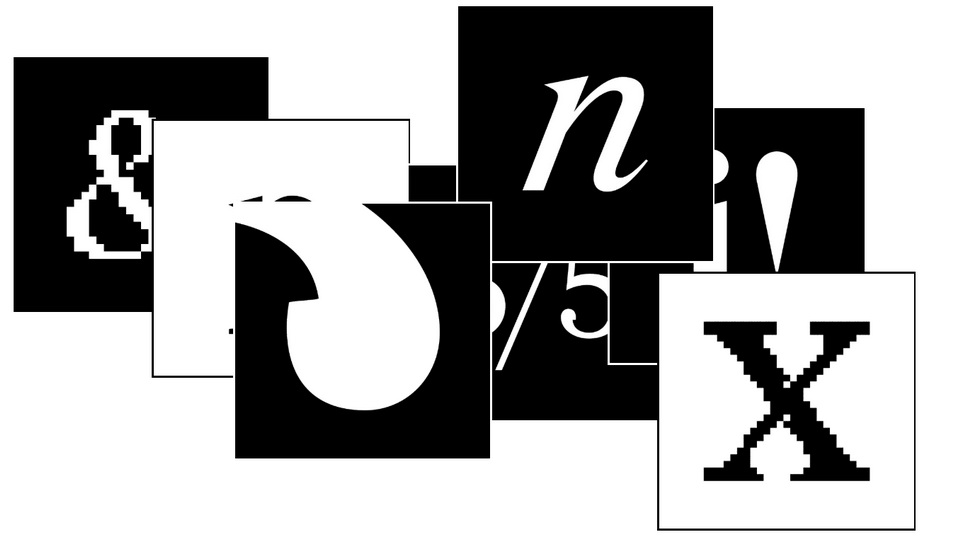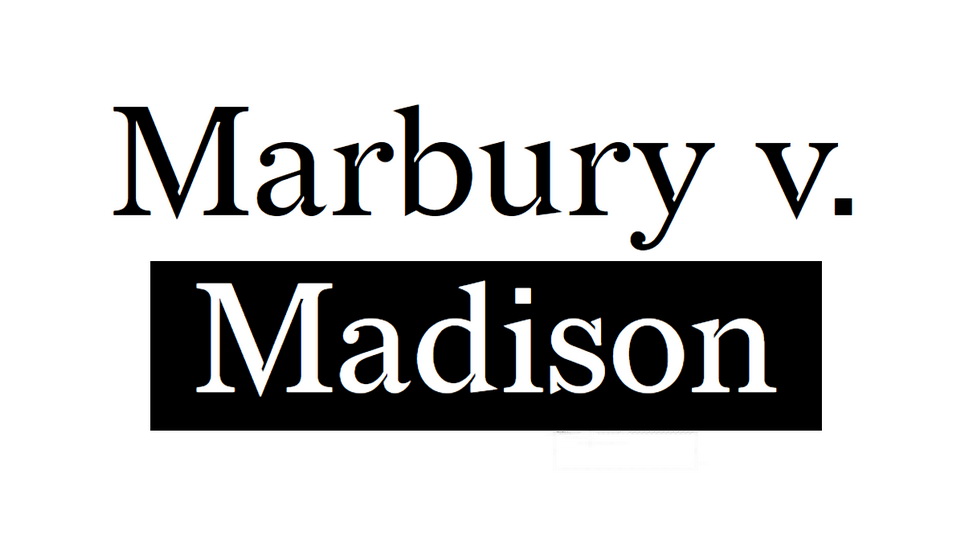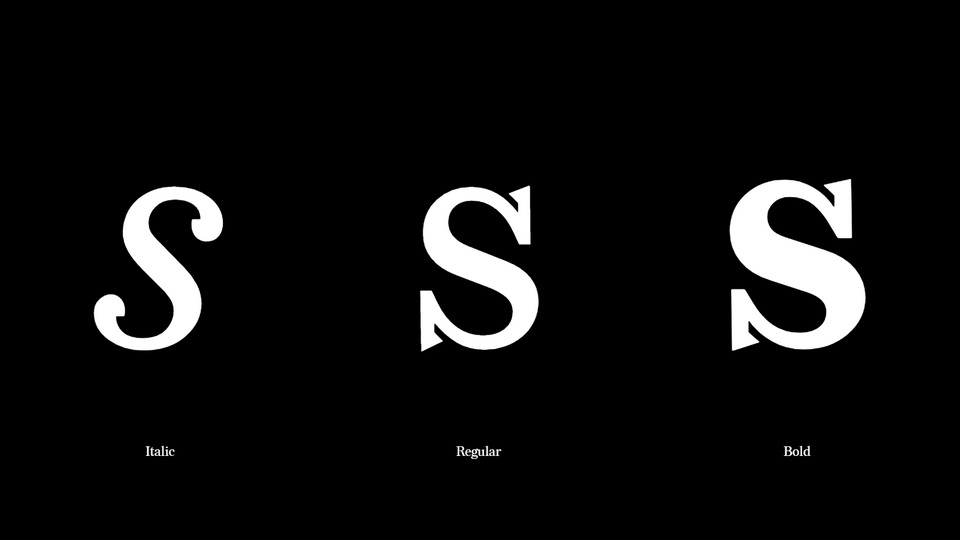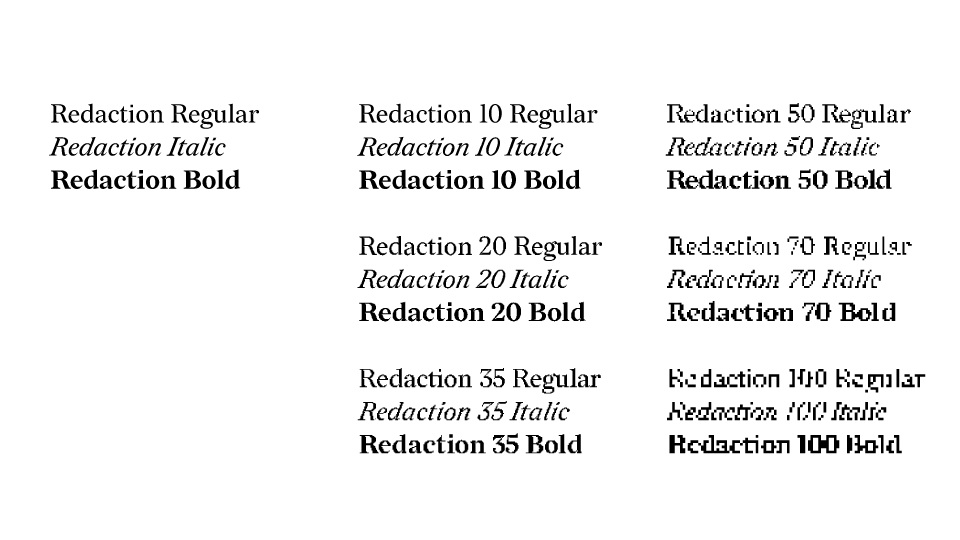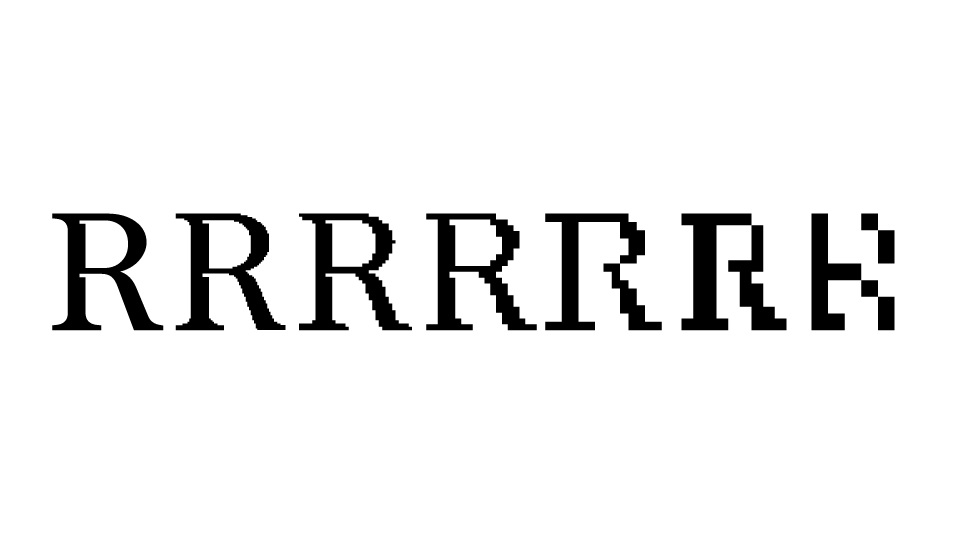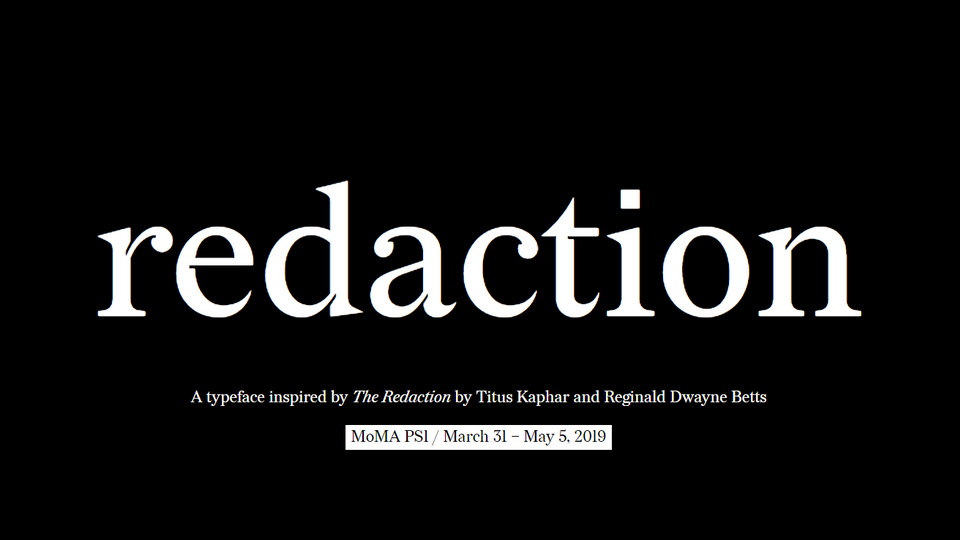
Redaction Typeface
Redaction is a multiplicity of typographic, legal, and human histories. The typeface was commissioned by Titus Kaphar and Reginald Dwayne Betts’ The Redaction exhibition at MoMA PS1.
Redaction is a typeface that seeks to capture the history and problems of the US criminal justice system. It is based on legal documents from claims filed by the Civil Rights Corps.
As a typeface, Redaction is meant to feel familiar, echoing Times New Roman and New Century Schoolbook (the typefaces of legal documents in the US), but with elements abstracted and heightened.
The digital “notches” in Redaction take inspiration from the degradation of letterforms that have been reproduced through faxing and photocopying.
Redaction fonts are available in 3 styles (Regular, Italic, Bold) and 7 grades of degradation for a total of 21 fonts. All fonts have full character sets for Latin-1 language support.